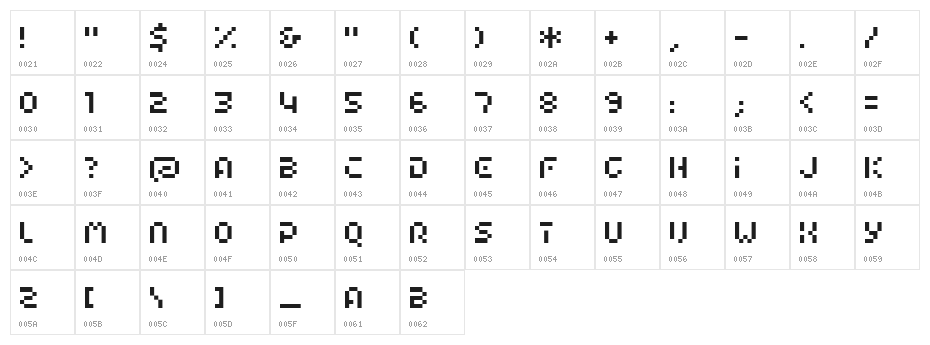
Airport Cyr Font
Airport Cyr Description
This font features a pixelated, blocky design reminiscent of early digital displays and retro video games. Each character is constructed with a uniform grid-like pattern, giving it a distinctly digital and mechanical appearance. The uppercase and lowercase letters maintain a consistent height, emphasizing the geometric nature of the font. The numerals and special characters follow the same pixelated style, ensuring a cohesive look across all glyphs. This font's design is straightforward, with no curves or embellishments, making it highly legible at various sizes.
| Overall Style | Retro, Digital |
| Use Case | Headlines, Logos, Digital displays |
| Proposed Projects | Ideal for retro-themed designs, digital displays, video game graphics, and tech-related branding. |